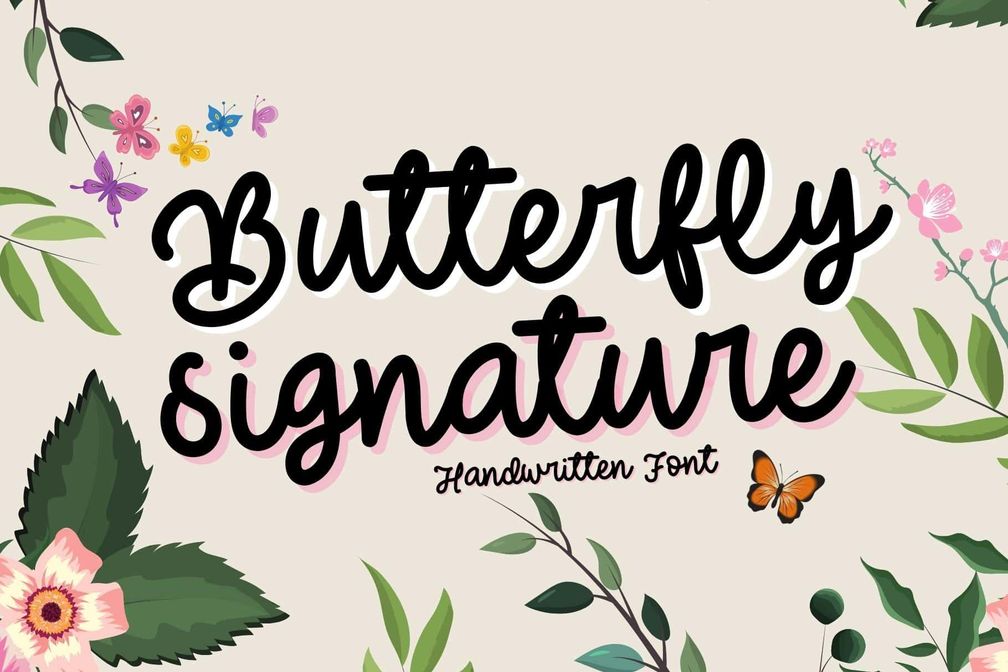
Butterfly Signature
Butterfly Signature – Elegant & Flowing Handwritten Font
Butterfly Signature is a graceful handwritten script font that captures the essence of elegance and fluidity. With its delicate curves and stylish letterforms, this font is perfect for branding, wedding invitations, logo designs, personal signatures, and social media graphics. Its handwritten charm gives your designs a touch of personality and class.
• Stylish Handwritten Flow: Smooth, natural strokes that mimic authentic handwriting.
• Perfect for Elegant Branding: Ideal for logos, personal brands, stationery, and upscale packaging.
• Signature-Inspired Design: Gives a custom and luxurious feel to every project.
• Complete Character Set: Uppercase, lowercase, punctuation, numbers, and multilingual support.